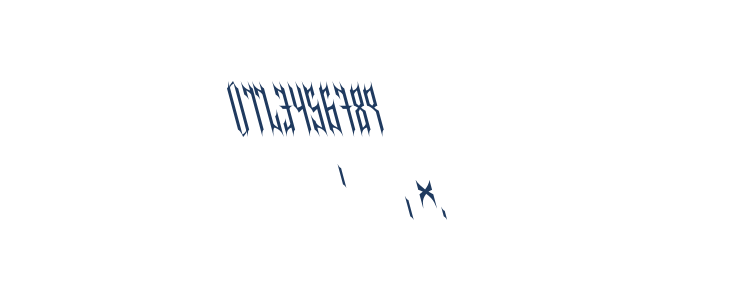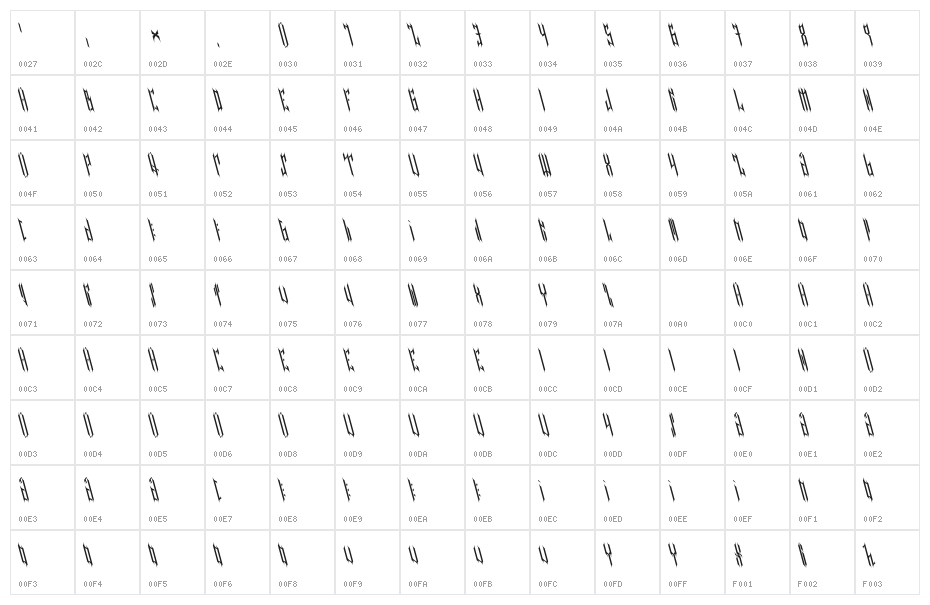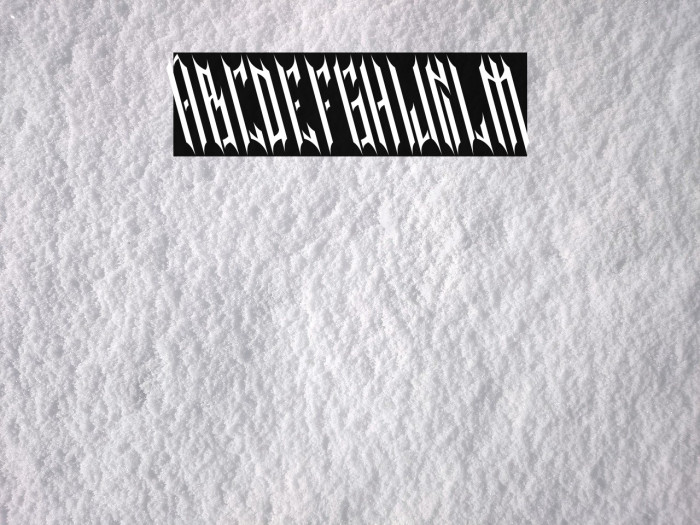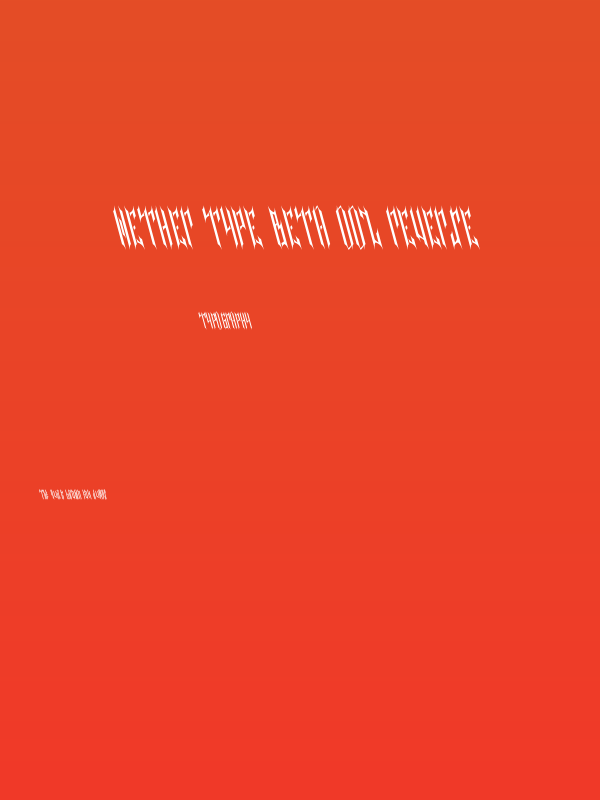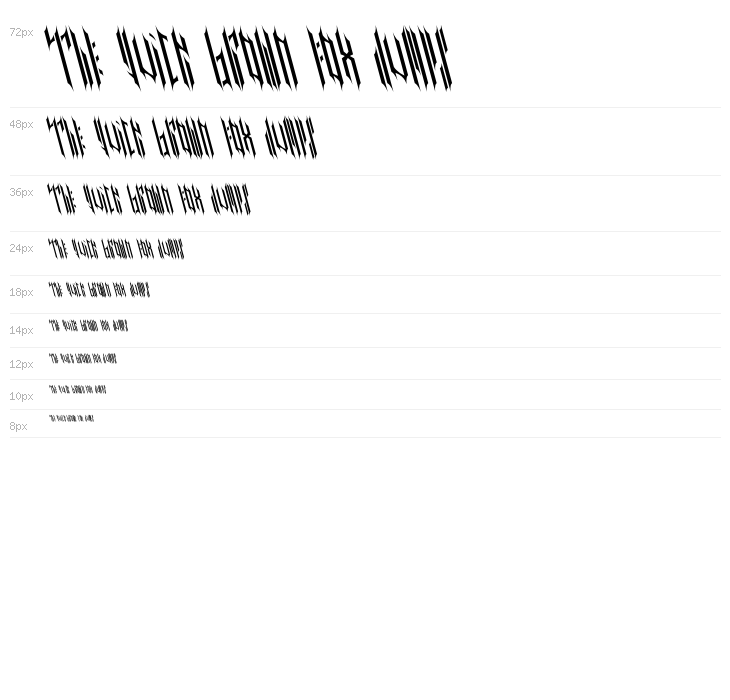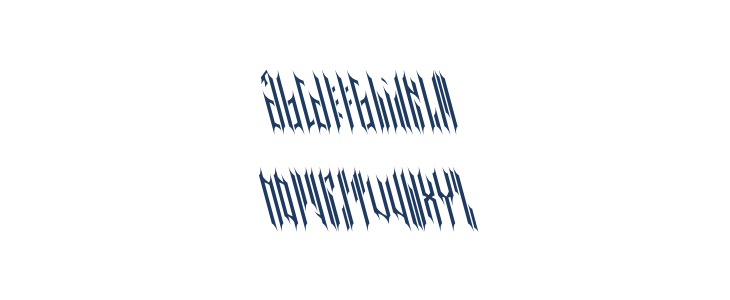
NETHER TYPE BETA 002 Reverse Font
NETHER TYPE BETA 002 Reverse Description
This font features a striking, angular design with sharp edges and a gothic-inspired aesthetic. The characters are bold and elongated, giving them a dramatic and intense appearance. The uppercase and lowercase letters maintain a consistent style, with a distinct emphasis on vertical lines and pointed serifs. Numbers and special characters follow the same stylistic cues, ensuring uniformity across all glyphs. The overall design evokes a sense of mystery and edginess, making it suitable for projects that require a bold statement.
| Overall Style | Gothic, Dramatic |
| Proposed Projects | Ideal for album covers, horror-themed posters, video game titles, or any project needing a bold, edgy look. |